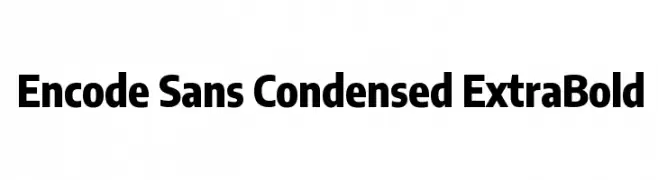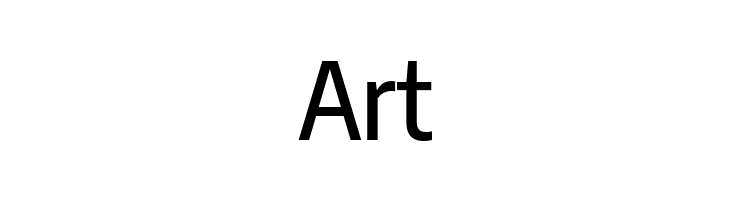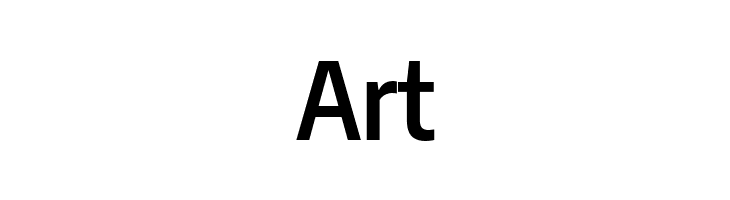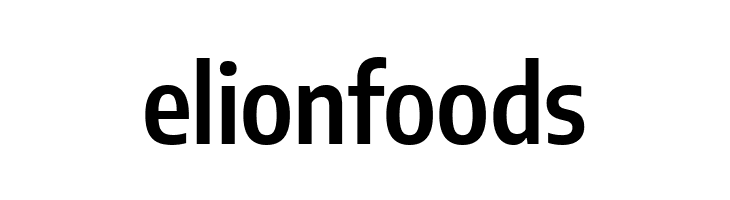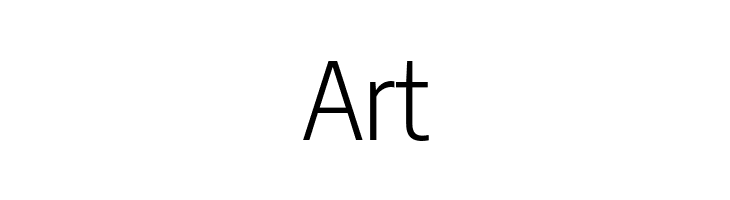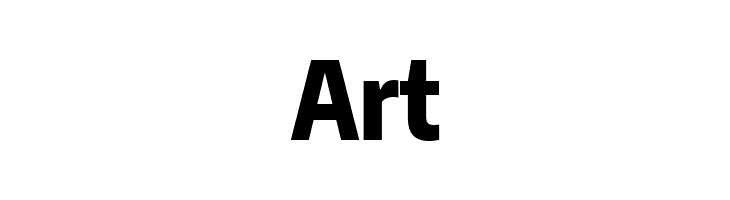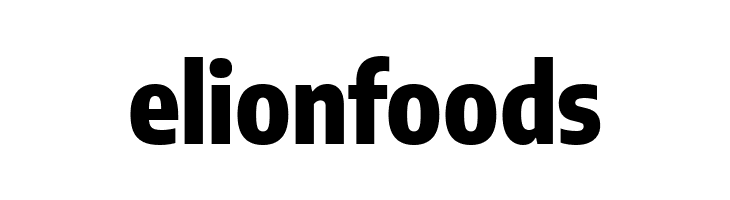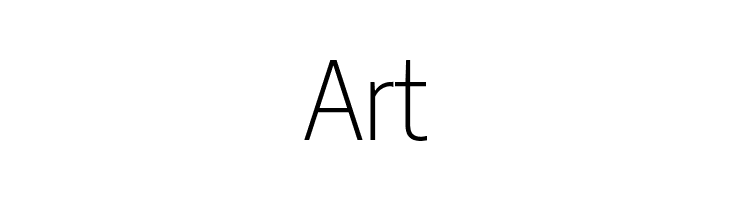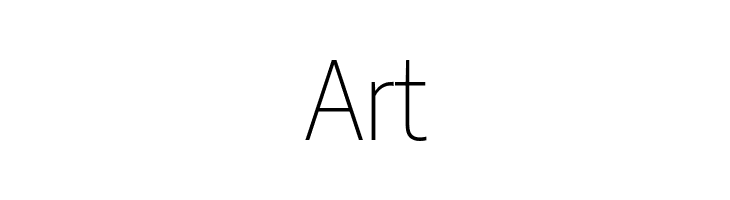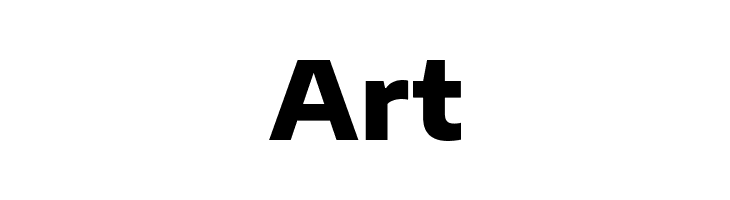
• Encode Sans Condensed ExtraBold
A modern, extra bold, condensed sans-serif font with tight spacing and low contrast.
• Encode Sans Condensed ExtraLight
A modern, condensed sans-serif font with an extra light weight and tight spacing.
• Encode Sans Condensed Light
A modern, condensed sans-serif font with a light weight and clean design.
• Encode Sans Condensed Medium
A modern, condensed sans-serif font with medium weight and excellent legibility.
• Encode Sans Condensed Regular
A modern, condensed sans-serif font with uniform strokes and excellent readability.
• Encode Sans Condensed SemiBold
A modern, condensed sans-serif font with a clean and professional look.
• Encode Sans Condensed Thin
A modern, thin, and condensed sans-serif font with a clean and minimalist design.
• Encode Sans Expanded Black
A bold, expanded sans-serif font with a modern and impactful style.
• Encode Sans Expanded Bold
A bold, expanded sans-serif font with a modern and clean design.
• Encode Sans Expanded ExtraBold
A bold, expanded sans-serif font with a modern and impactful design.